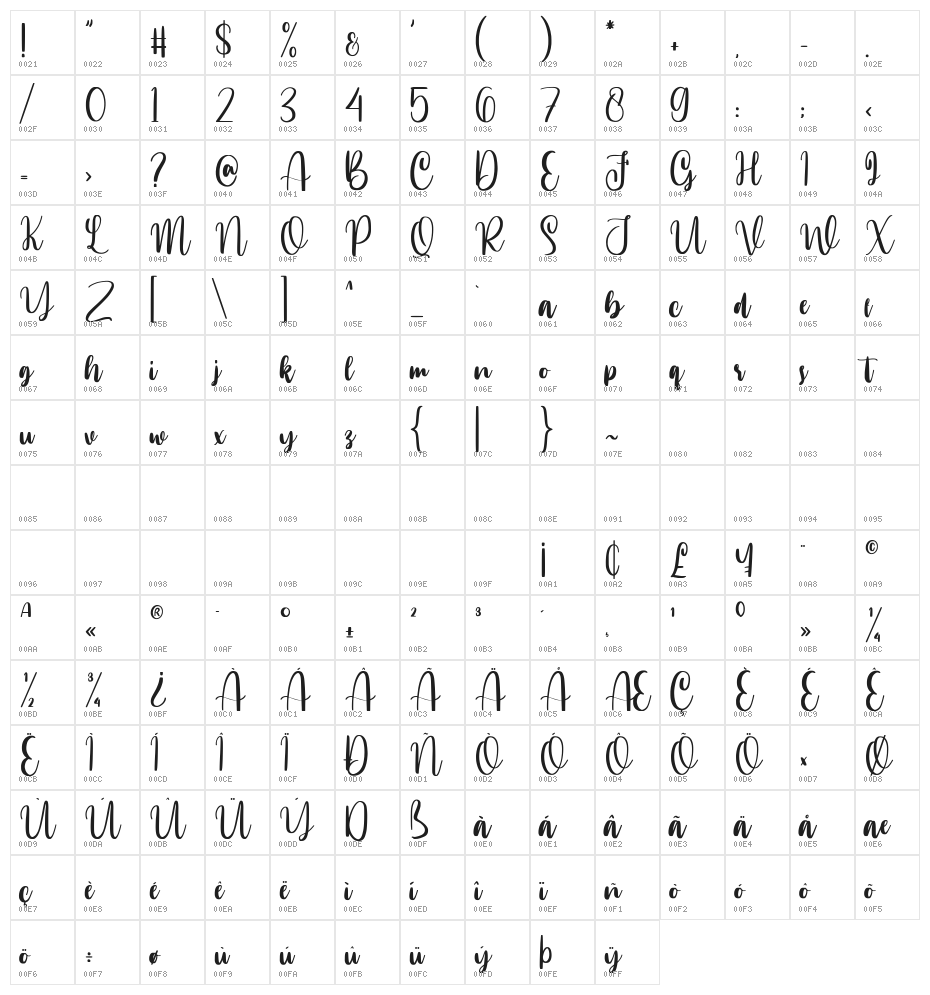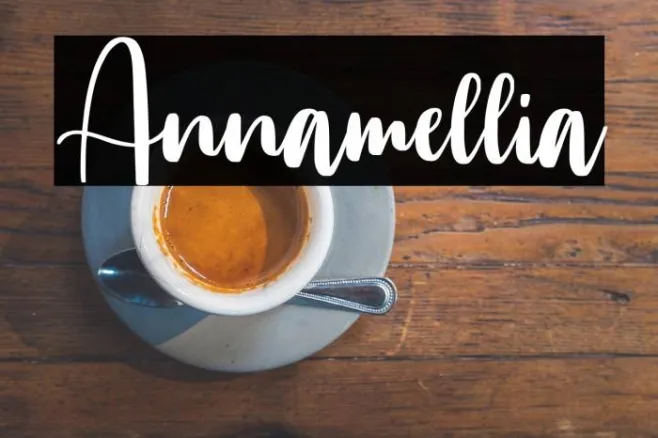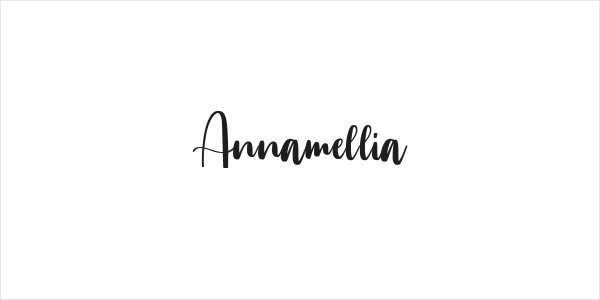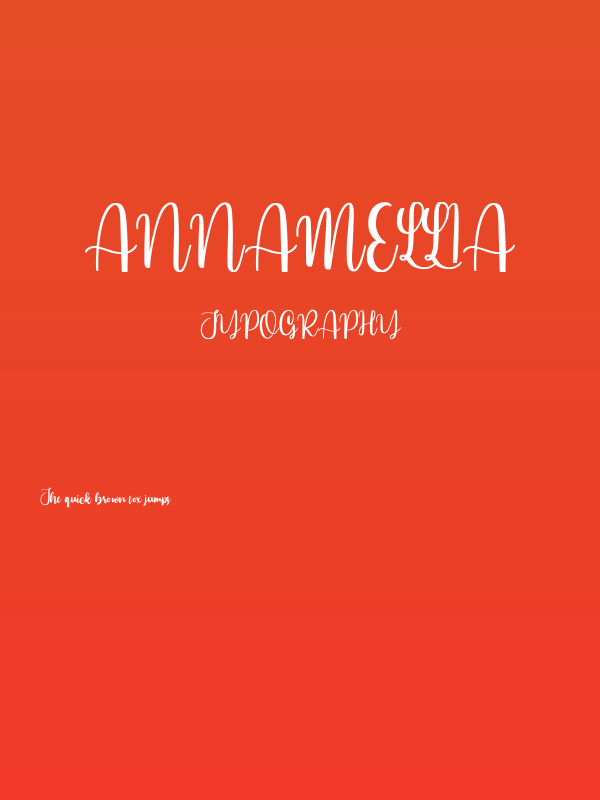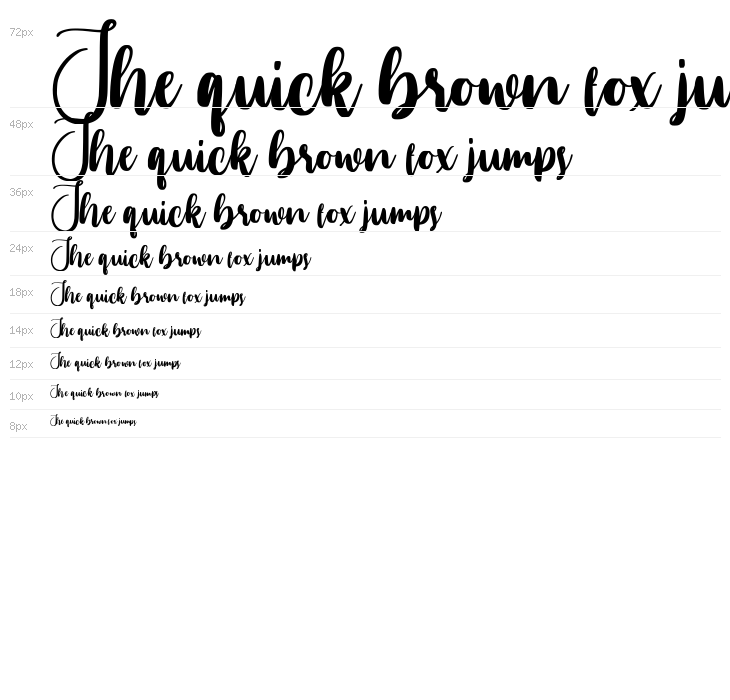
Annamellia Font
Annamellia Description
This font features a lively and flowing script style, characterized by its elegant and smooth curves. The uppercase letters are tall and graceful, with a slight slant that adds a sense of motion and fluidity. The lowercase letters are more compact, maintaining the same fluidity with a playful touch. The numbers and special characters are consistent with the overall style, offering a harmonious blend of elegance and readability. The font's design is reminiscent of hand-lettered calligraphy, making it suitable for projects that require a personal and artistic touch.
Use CaseLogos, Invitations, Decorative text
Proposed ProjectsIdeal for wedding invitations, greeting cards, branding, and logo design.